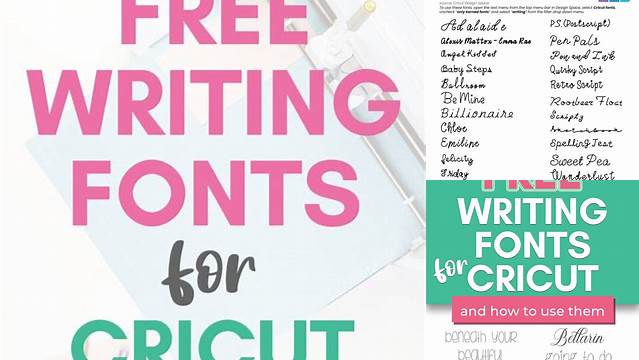
Thin Fonts For Cricut Writing: Your Ultimate Guide
Hey guys! Today, we're diving headfirst into the awesome world of thin fonts for Cricut writing! If you're anything like me, you love the delicate, elegant look that a thin font can bring to your Cricut projects. But, let's be real, getting those perfect, crisp lines can sometimes feel like a Herculean task. Don't worry, though! This guide is designed to equip you with everything you need to know to master the art of thin fonts for Cricut writing. We'll cover font selection, machine settings, and even some troubleshooting tips to make sure your projects are looking their absolute best. So, grab your favorite crafting beverage, settle in, and let's get started on this exciting journey into the world of Cricut fonts!
1. Understanding the Magic of Thin Fonts for Cricut
Alright, let's start with the basics. Why are thin fonts for Cricut so darn appealing? Well, for starters, they add a touch of sophistication and elegance that you just can't get with bolder fonts. Think of wedding invitations, personalized gifts, or even just adding a delicate touch to your home decor. The beauty of these fonts lies in their ability to create intricate designs and detailed lettering that really makes your project stand out. Using thin fonts for Cricut is like adding the perfect finishing touch to a masterpiece. It elevates your creations and gives them a professional, polished look. The detail is also what makes it tricky. Because the lines are so fine, you need to be super careful about your font choice and machine settings to avoid any unwanted results. A font that looks amazing on your computer screen might become a tangled mess when cut by your Cricut. That is why this guide is essential. We'll break down everything you need to know to select the right fonts and get the perfect cut every time. Remember, it's all about the details. You will need to consider font weight, style, and even the type of material you are using. Keep in mind that practice makes perfect, and don't be afraid to experiment until you find what works best for you.
2. The Best Thin Fonts for Cricut Writing: Top Picks
Alright, let's talk fonts! Choosing the right thin fonts for Cricut writing is half the battle. You want fonts that are both beautiful and easy for your Cricut machine to cut. Here are some of my top picks, along with why they work so well. Firstly, we have the ever-popular Helvetica Neue Thin. This font is a classic for a reason. Its clean lines and elegant appearance make it perfect for all kinds of projects. The key here is the consistency of the strokes. Each letter is carefully designed to be cut cleanly. You'll find that it's versatile enough for everything, from invitations to labels. Next up, we have Century Gothic. This font is known for its slightly wider strokes and rounded edges, which make it great for writing. The font’s slightly wider strokes are ideal, especially if you're working with delicate materials. Moving on, another excellent choice is Arial Narrow. This font is a favorite for its simplicity and readability. It is a great option if you're looking for something that's easy to read and cut. The narrowness of the font also allows you to fit more text into a smaller space. And finally, Bebas Neue is another good choice. This font is modern and stylish, with a thin but solid design. Just make sure you download the thinnest weight available. You will find these fonts are both visually appealing and reliable when cut with your Cricut. When selecting a font, consider its weight, style, and readability. A font's weight determines how thin or bold the strokes are. A thin font has delicate lines and requires careful handling. Consider readability. Your font choice should also be easy to read. These fonts will help you create stunning projects with ease.
3. Font Weight and Style: Key Considerations for Cricut Writing
Now, let's get into the nitty-gritty of font weight and style. Understanding these elements is critical when working with thin fonts for Cricut writing. When choosing a font, the weight is arguably the most important factor. It dictates the thickness of the lines that your Cricut will cut. For a thin font, you'll want to select a font weight that is labeled as “thin,” “light,” or something similar. Stay away from anything that is labeled as “bold” or “black,” as these will likely be too thick for intricate writing. This is about balance. A font that’s too thin might be difficult to weed, while a font that's too thick can look clunky. Style plays a big role too. Fonts are designed in different styles like serif, sans-serif, and script. Serif fonts have small strokes at the ends of letters and can create an elegant look. Sans-serif fonts are clean and modern, but sometimes, their simplicity can lead to a loss of detail. Script fonts, with their flowing lines, are perfect for creating a handwritten look, but can be tricky to cut. The goal is to find a font that's both visually appealing and practical. Consider the material you're working with. For example, if you're cutting on vinyl, a delicate script font may be fine, but on cardstock, a slightly bolder weight might be better to prevent tearing. Experimentation is essential. Try different weights and styles to see what works best for your project. Sometimes, what looks good on the screen won't translate well to a physical cut, so don't be afraid to try different combinations until you find the perfect one.